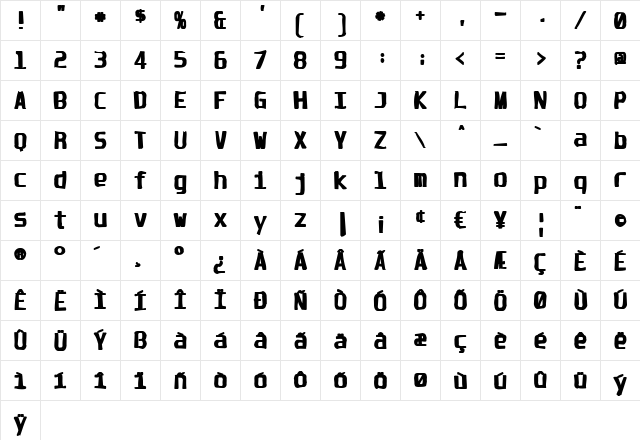
Unispace Ink Regular Free Font
Unispace Ink Regular
Design Context for Unispace Ink
Unispace Ink is a composed and adaptable typeface that performs quietly and consistently across a wide range of design contexts.